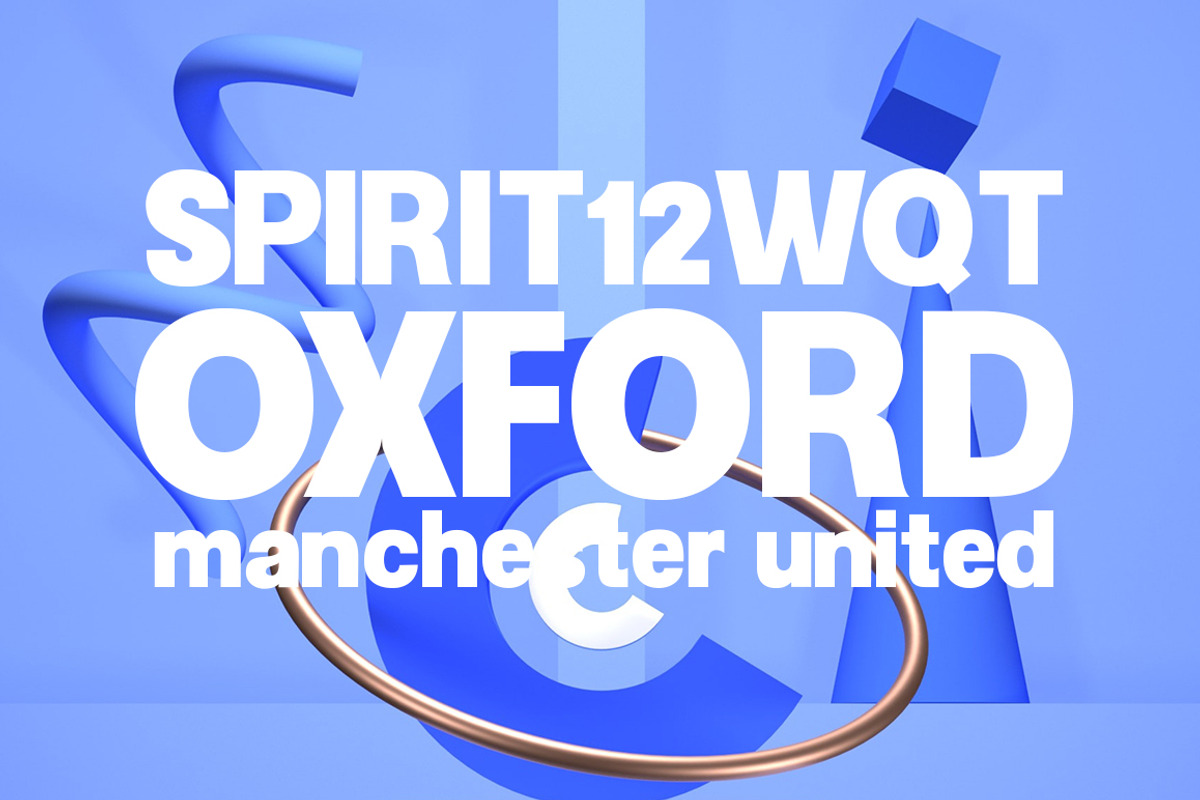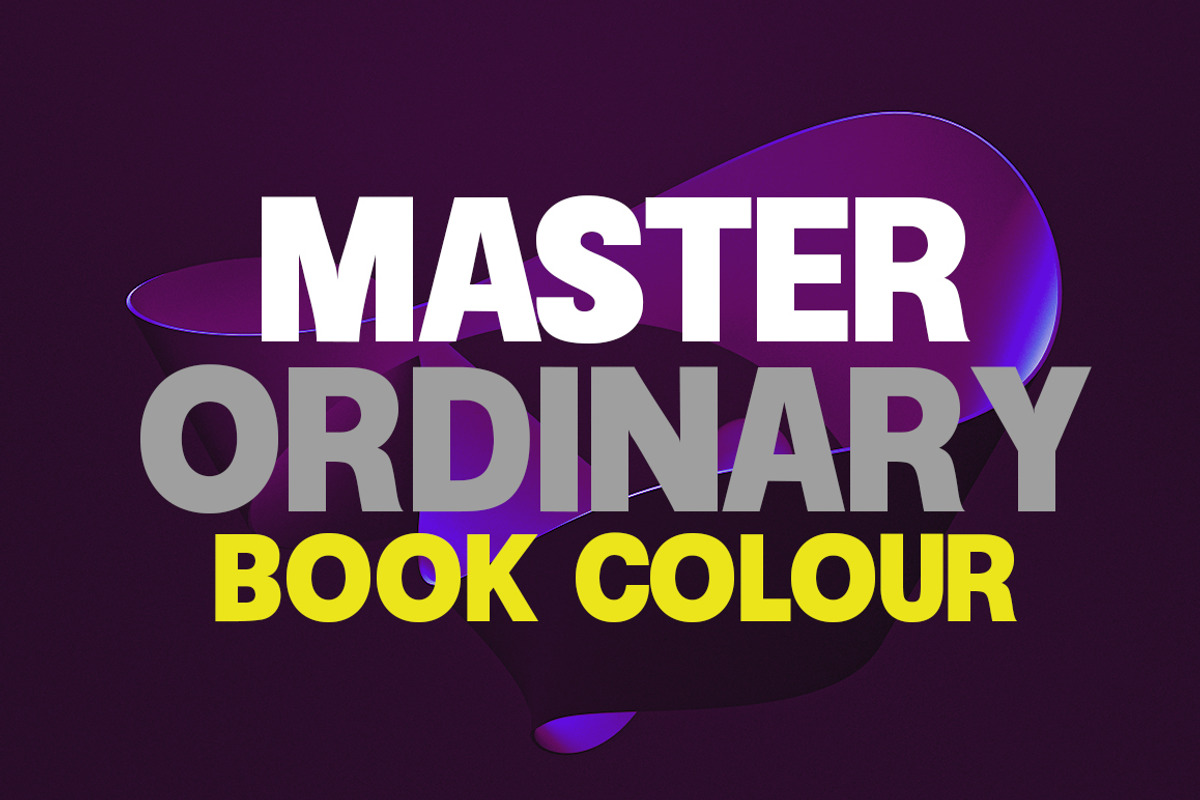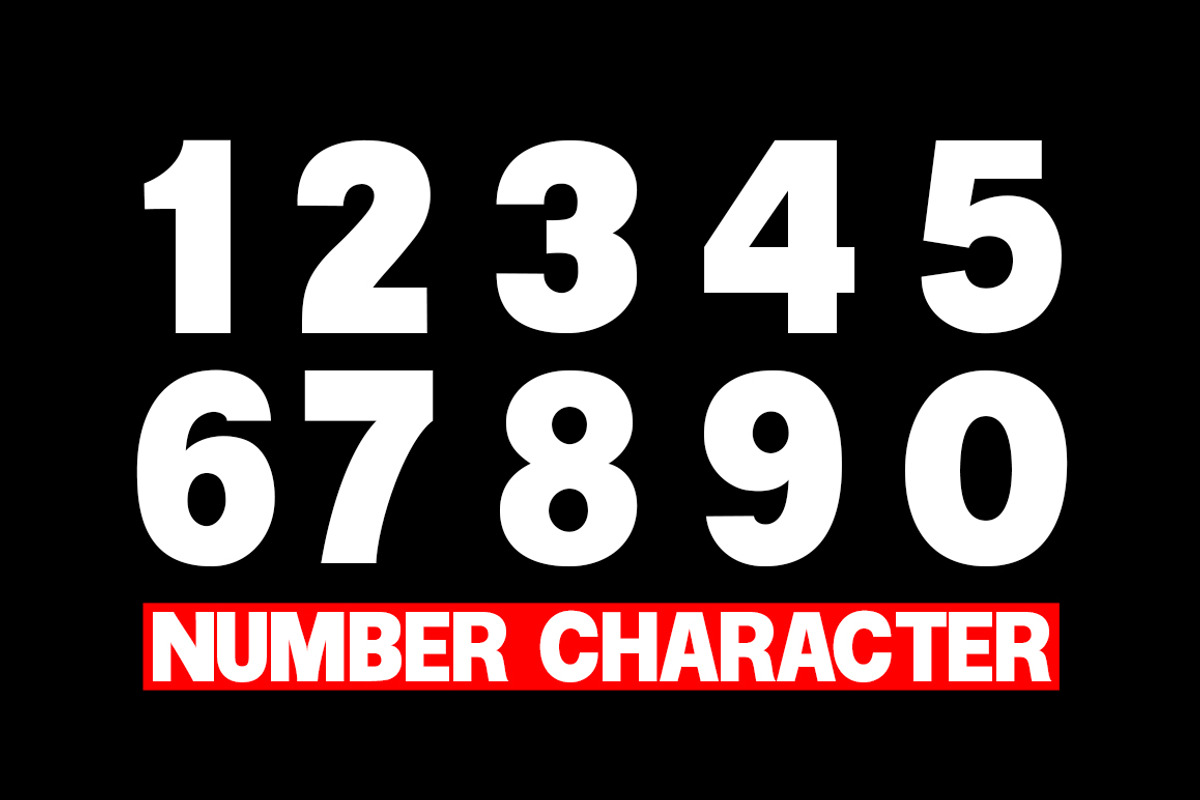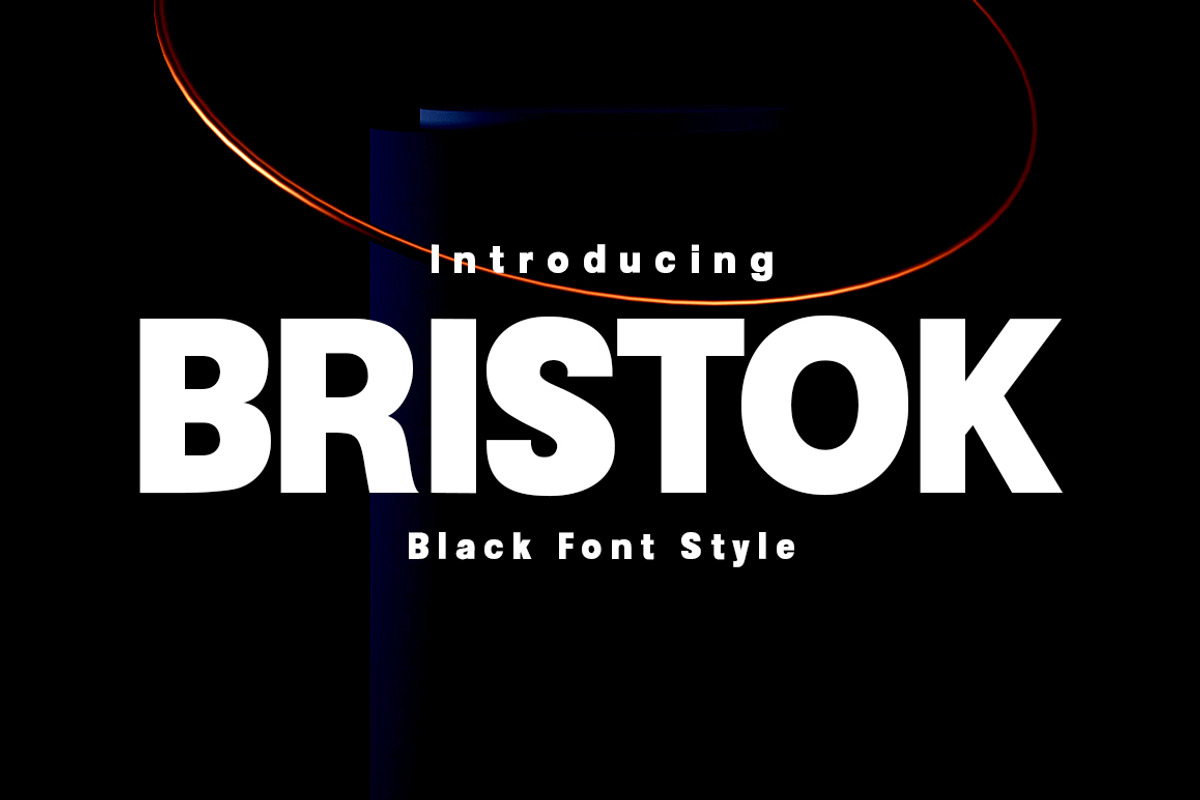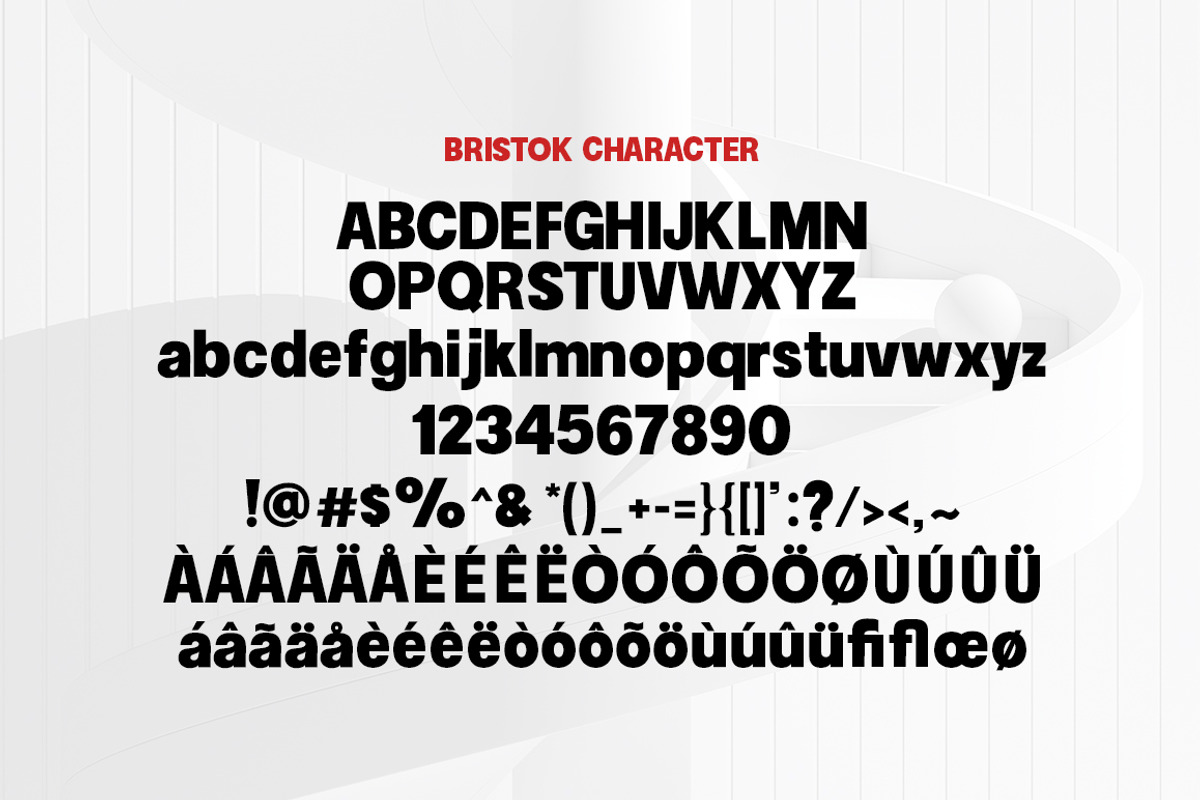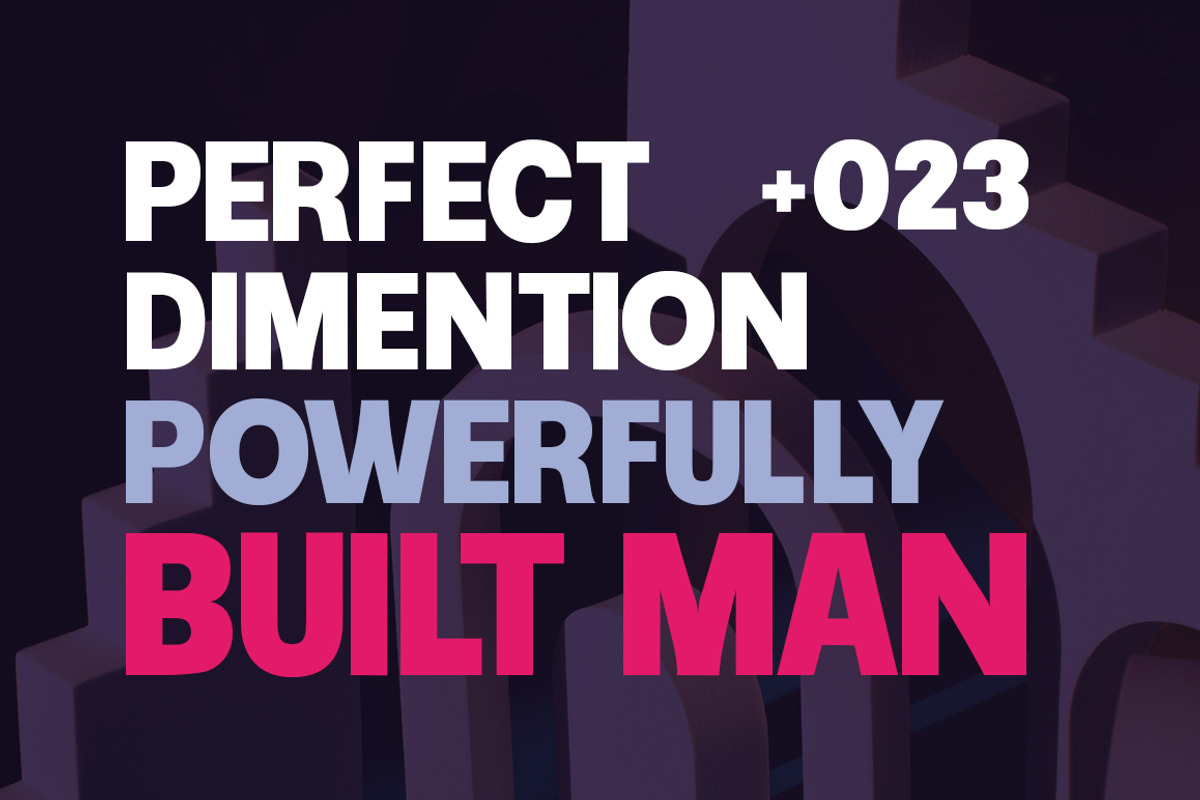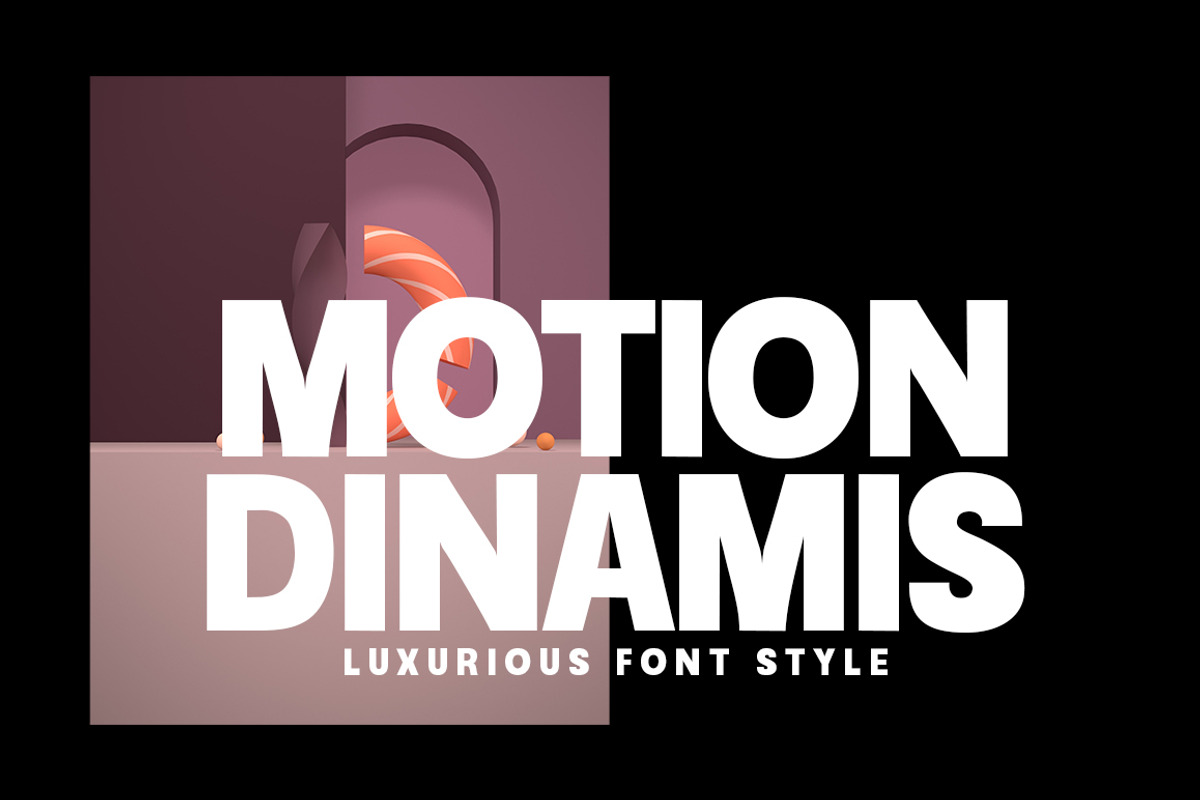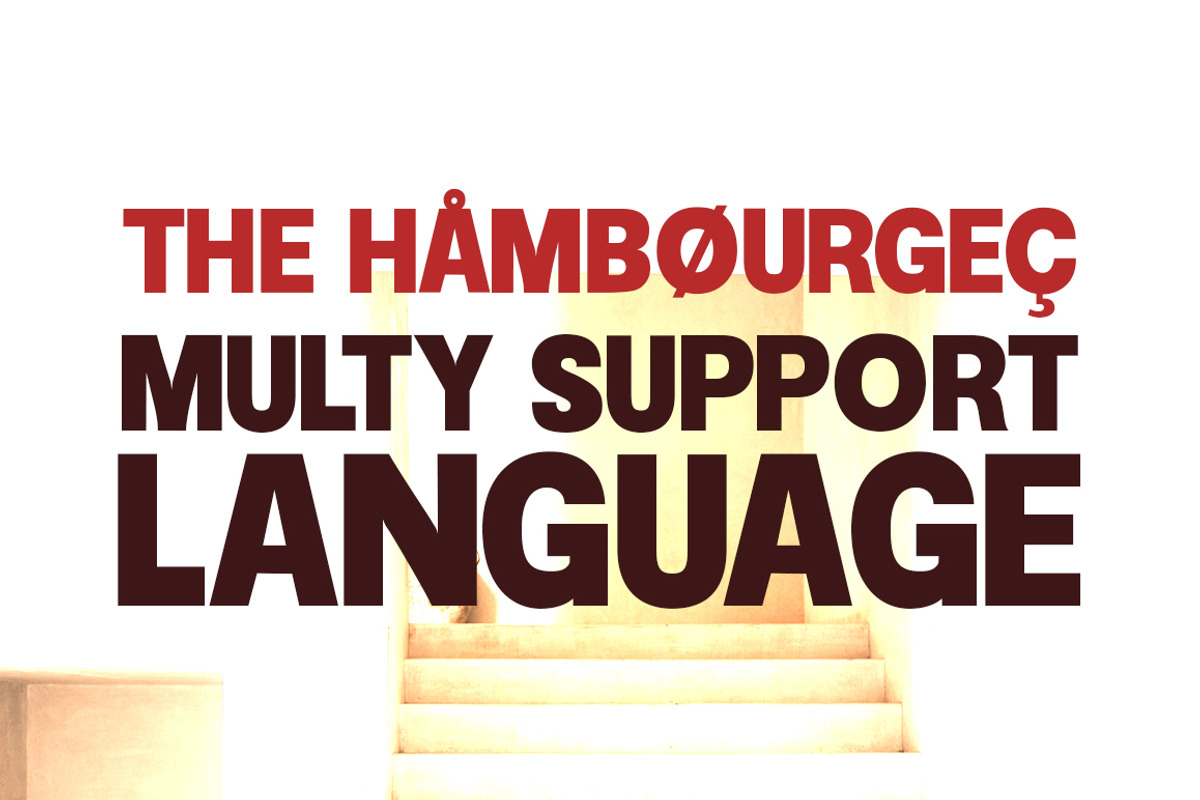
Bristok
Hi Everyone Bristok Black We are proud to present our new font. The new natural Bristok Black look with a classy and modern sans style makes this font look elegant, natural, stylish. Rangile will be perfect for invitations, logos & branding, photography, advertising, watermarks, social media posts, product packaging, product designs, labels, wedding designs, stationery, special events or anything else needed to create a theme.
Bristok Black is built with features and includes initial and final language styles, alternative characters for most lowercase letters, numbers, punctuation marks, ligatures, and also supports other languages.